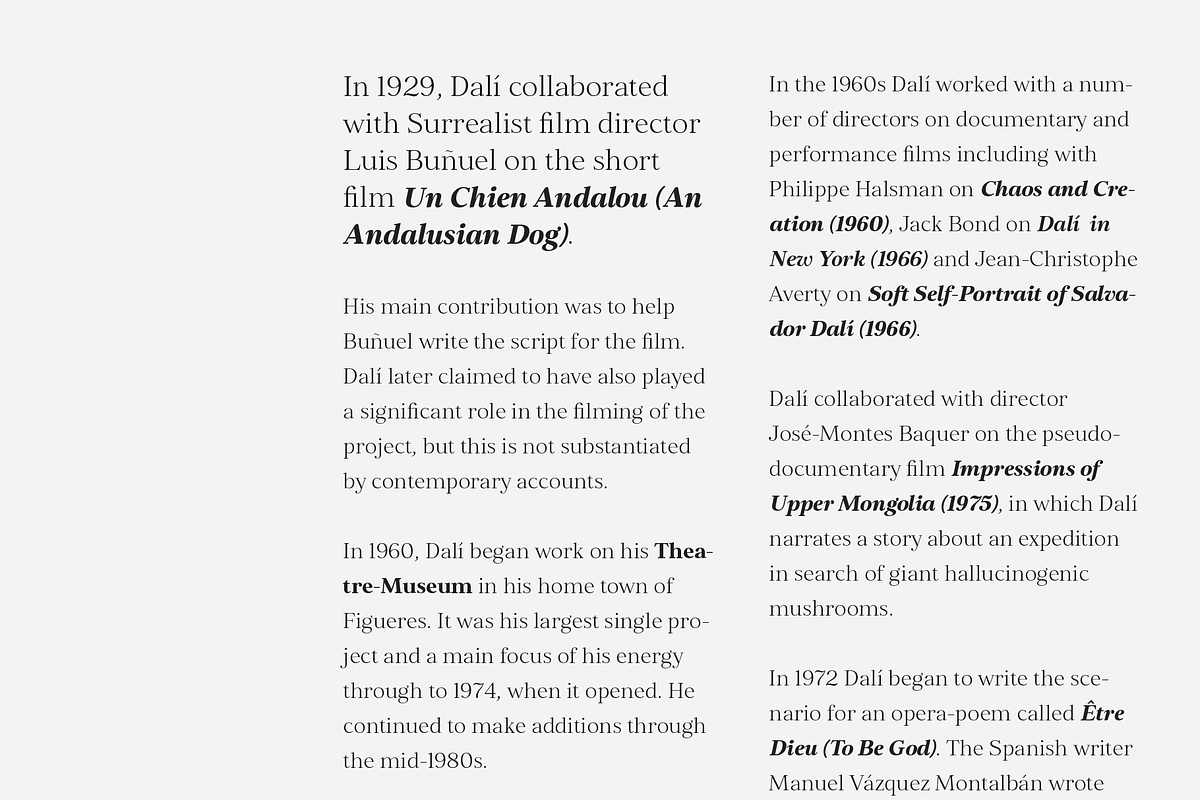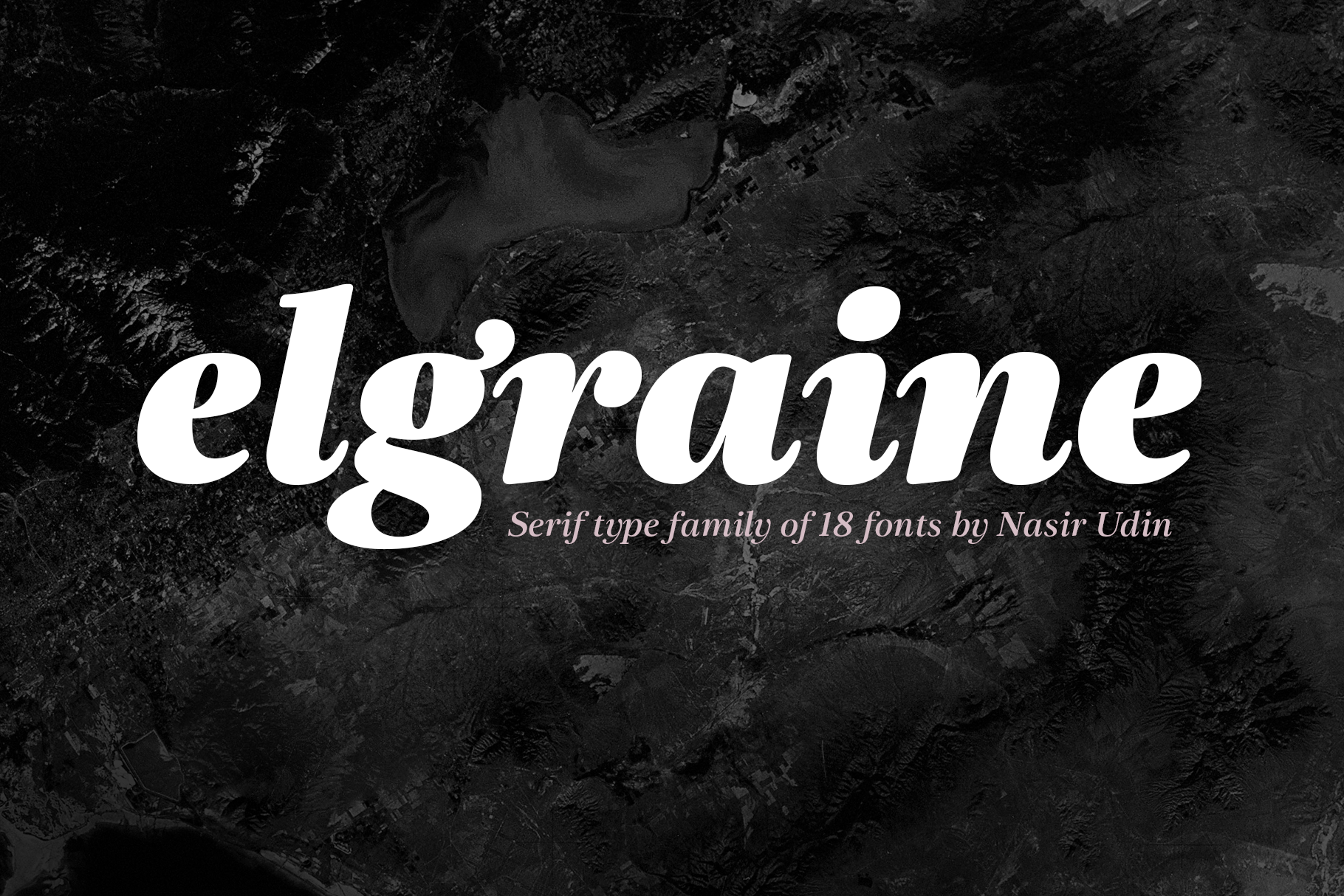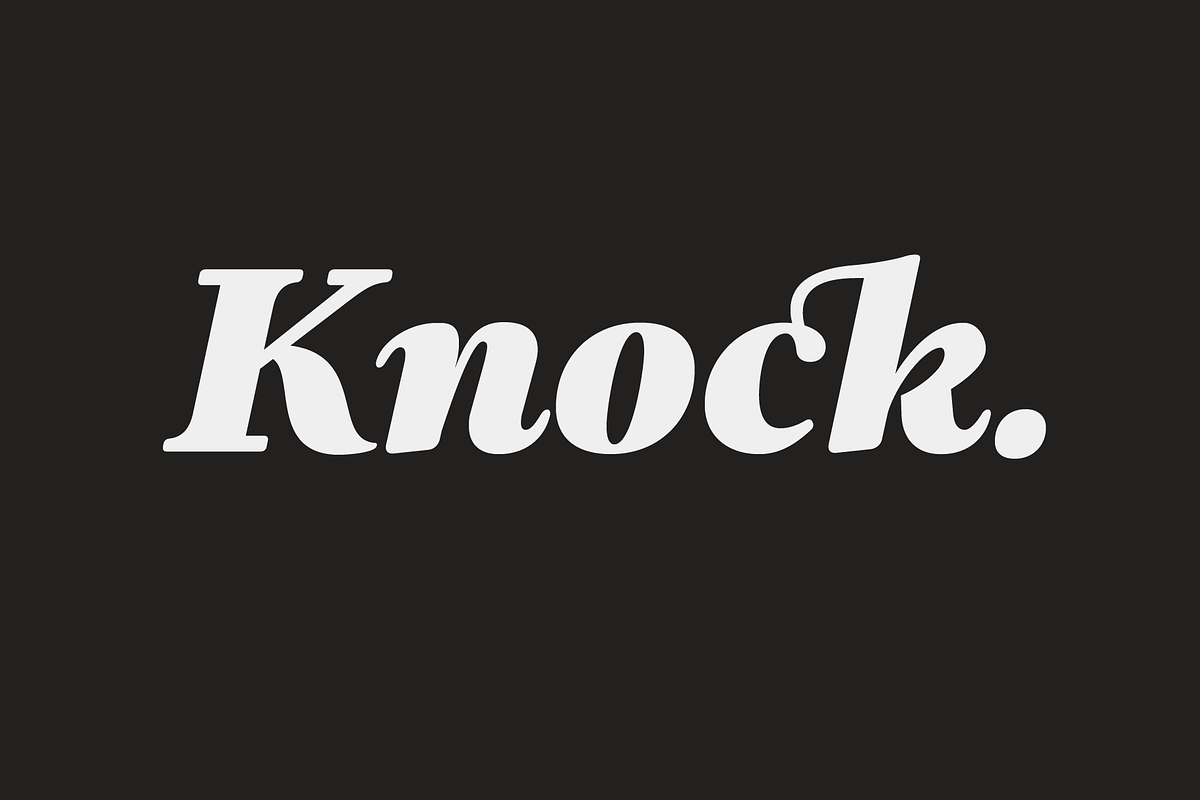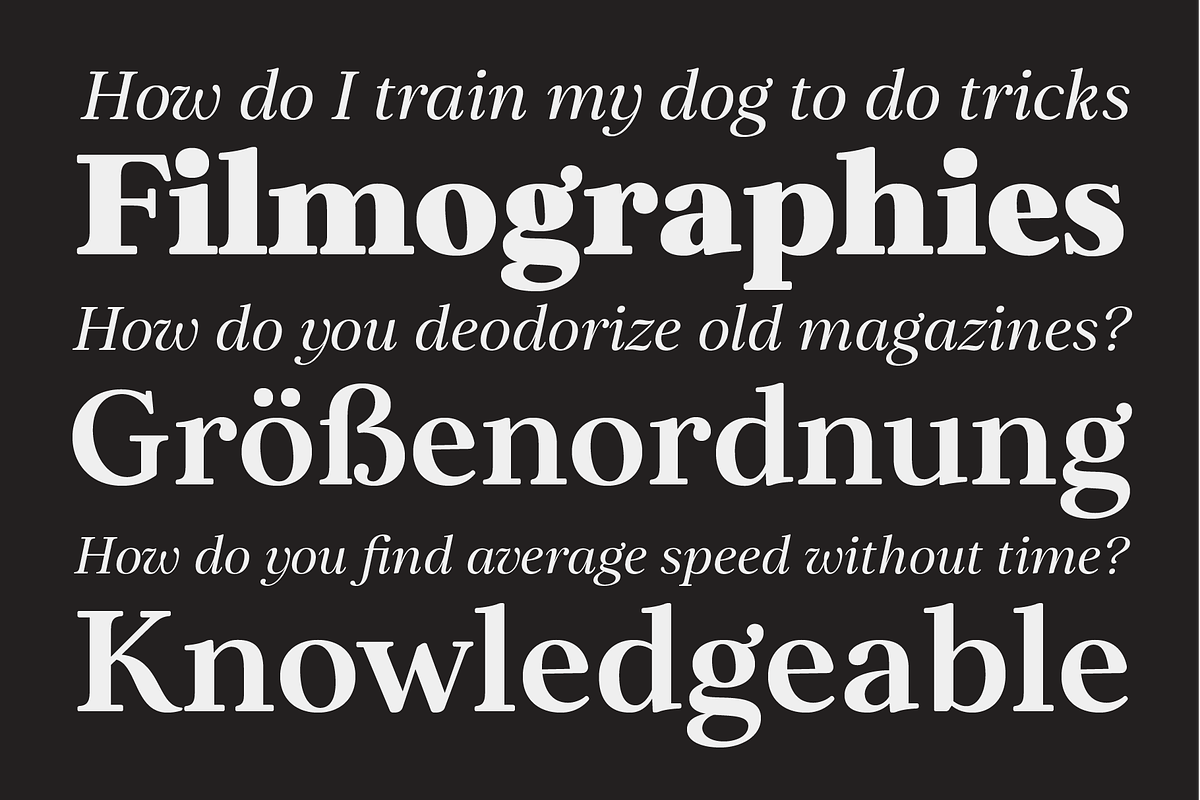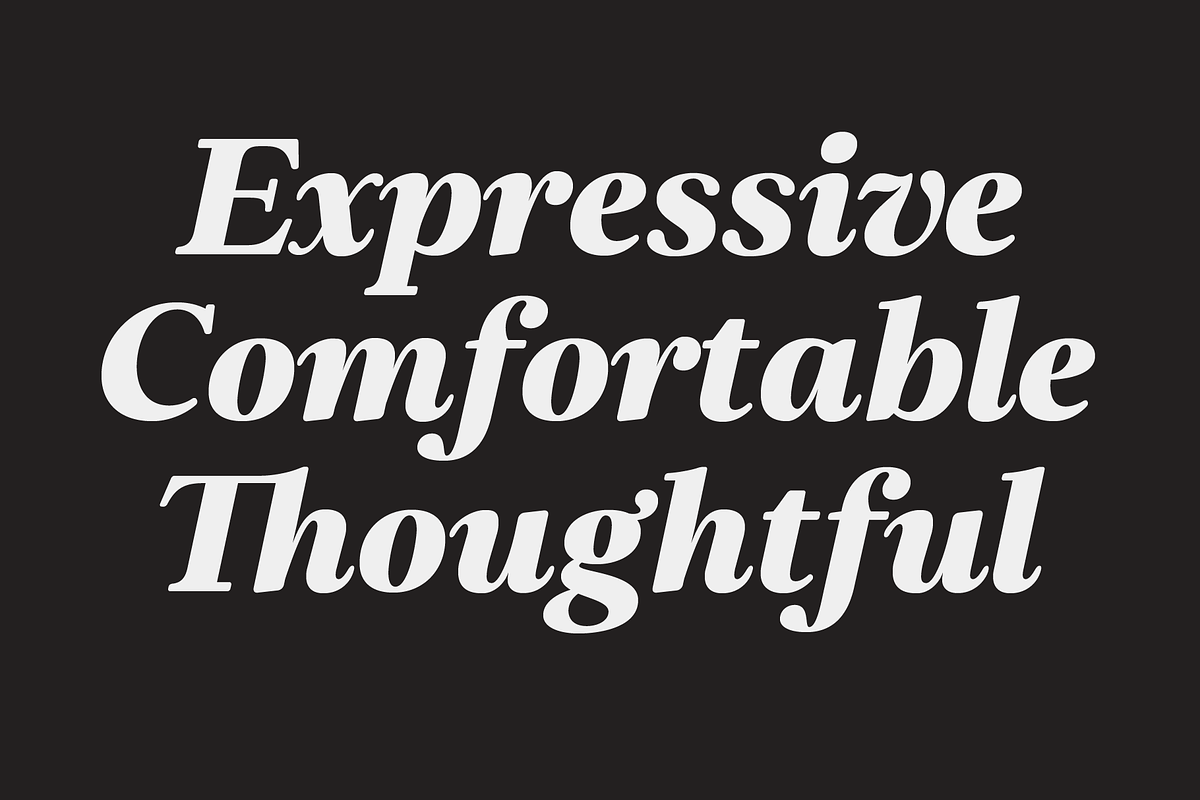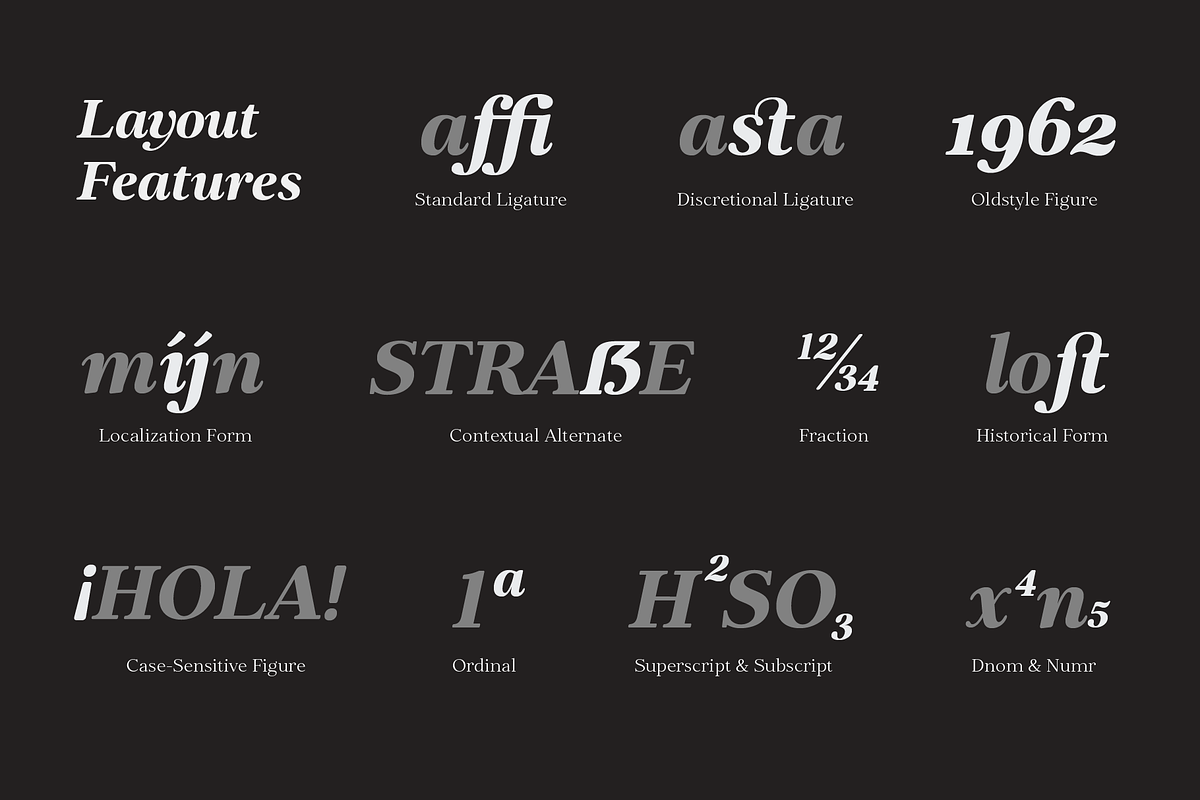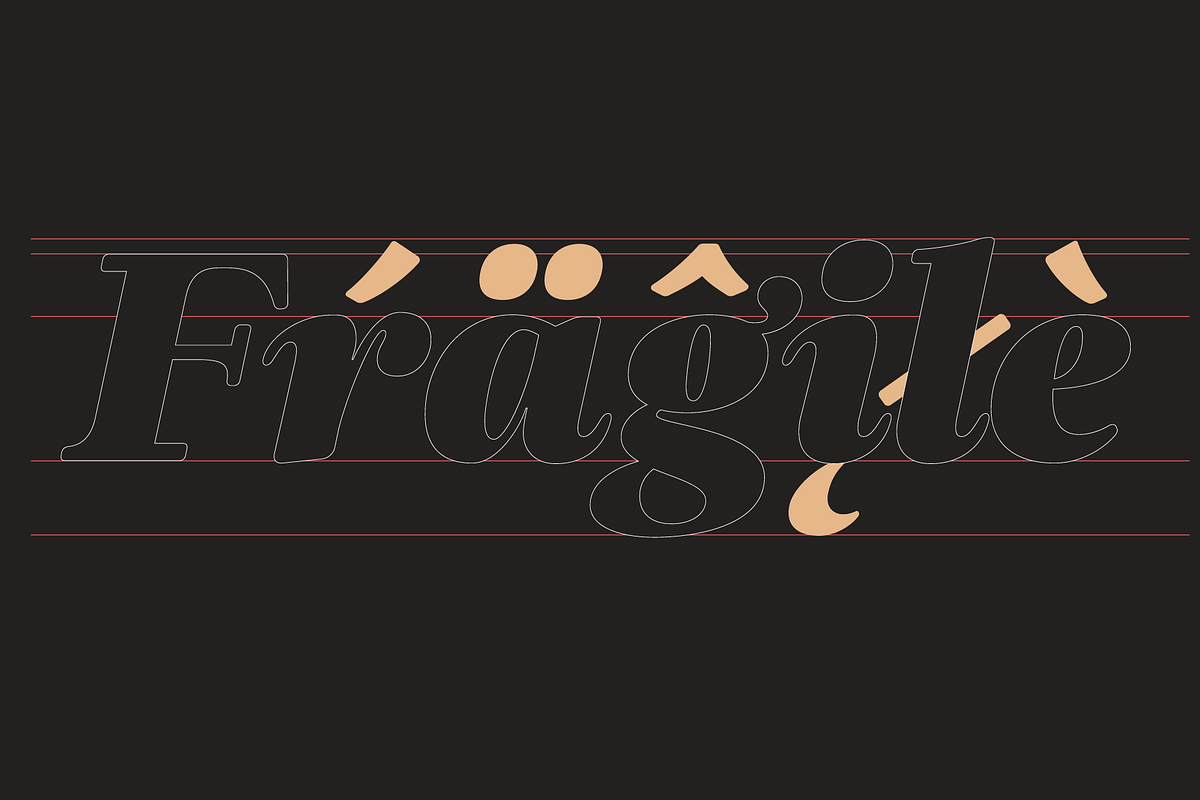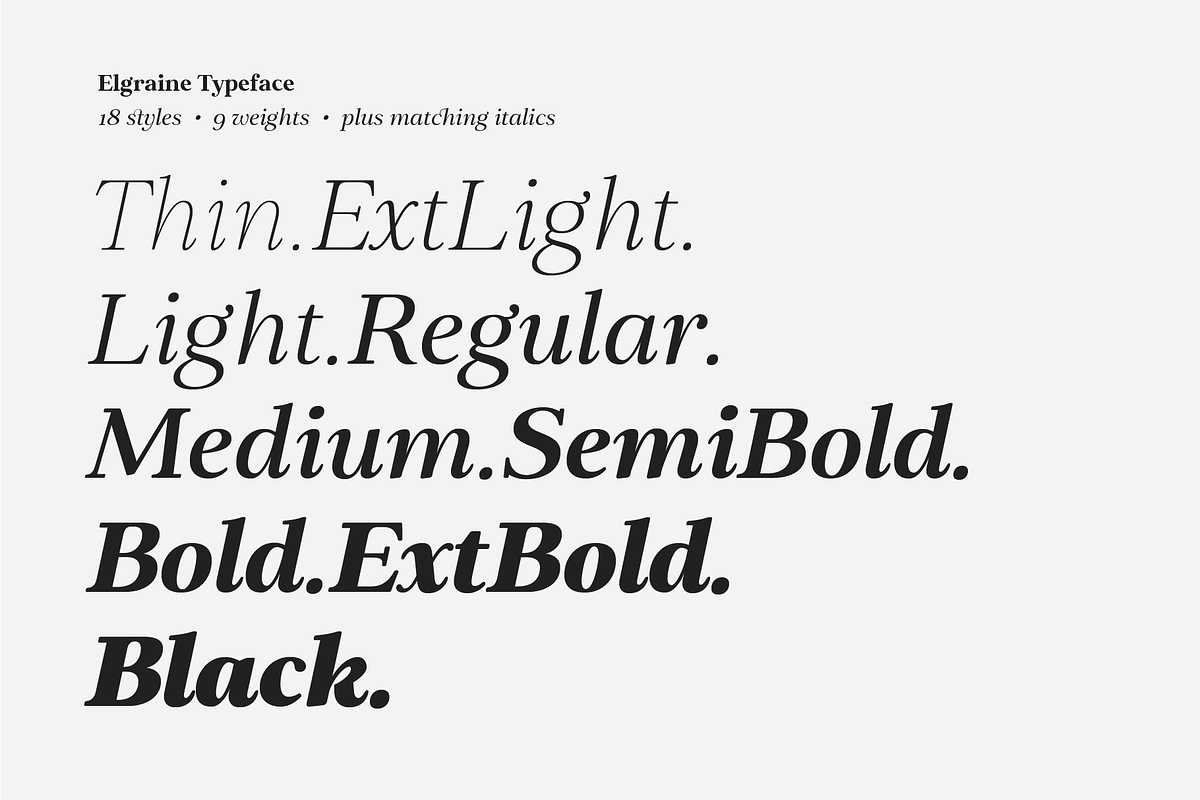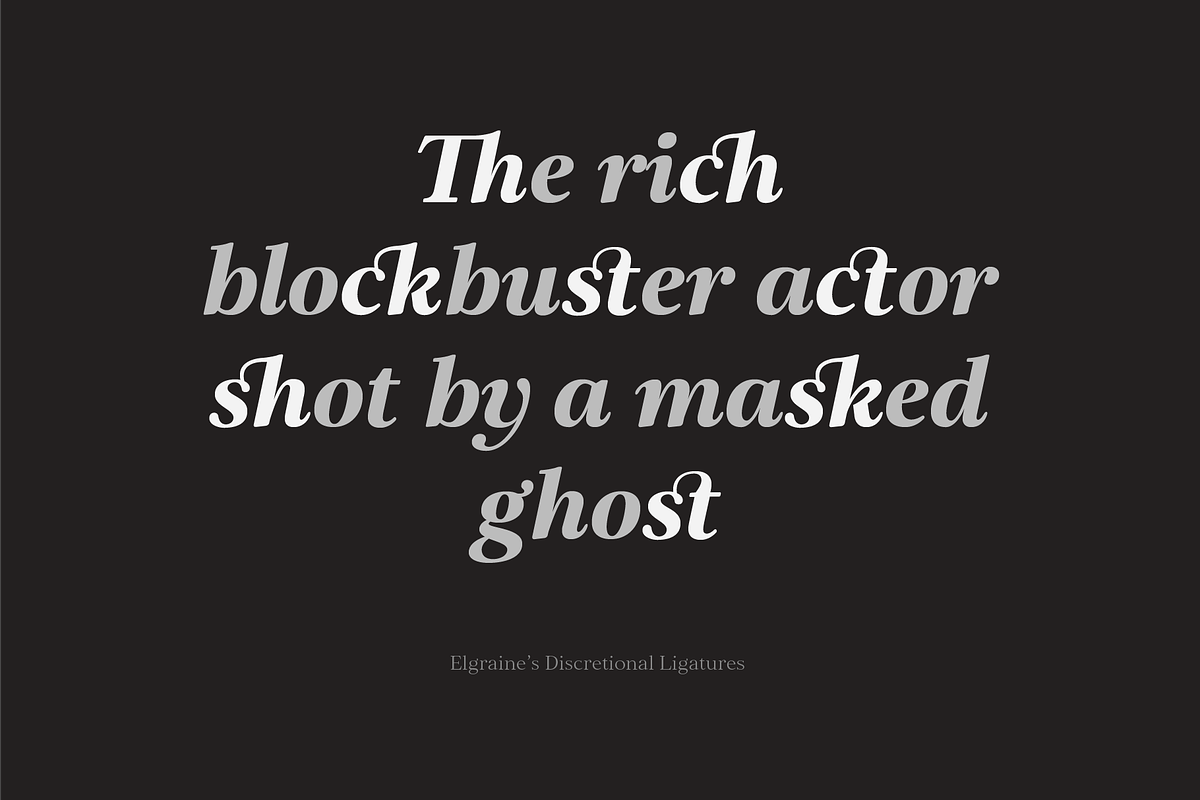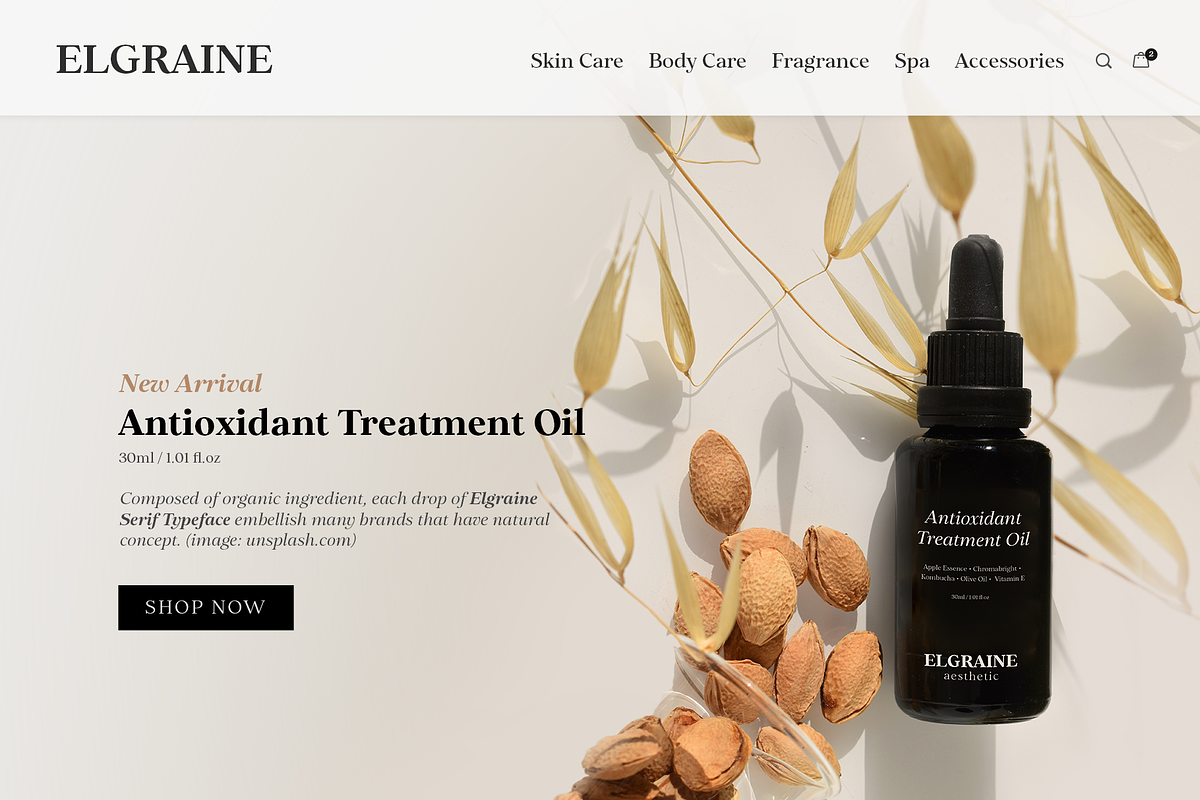
Elgraine – 18 Fonts
Elgraine is a serif typeface inspired by the beauty of classic serif and calligraphic style, fused with modern touch.
Ranging from thin to black with its matching italics, Elgraine offers many possibilities to be applied in many graphic or editorial projects. The light and regular weights are suitable for small texts or long paragraph, and the heavier weights are perfect for striking headlines, perfectly suitable for display purpose such as branding, editorial, and packaging.
Elgraine is developed for advanced typography needs. The OpenType fonts have an extended character set to support 200+ latin-based languages.
Key features:
- 9 weights plus matching italics
- 496 glyphs per font
- OpenType features: Contextual Alternate, Case Sensitive Forms, Discretionary Ligature, Denominator, Fractions, Historical Forms, Kerning, Standard Ligatures, Localized Forms, Numerator, Oldstyle Figures, Ordinals, Scientific Inferior, Subscript, Superscript
- Language support: Western Europe, Central/Eastern Europe, Baltic, Turkish, Romanian